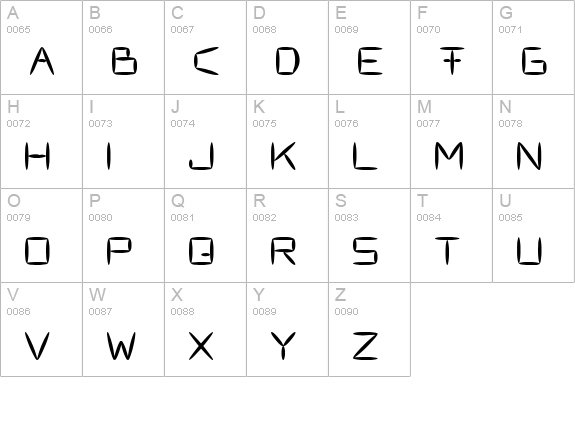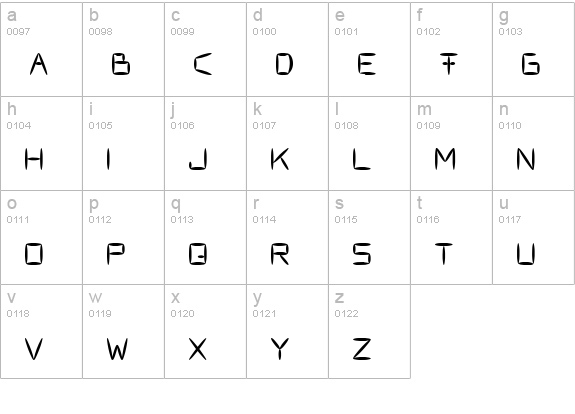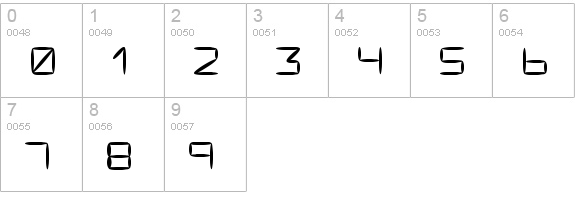
Fracksausen Font Details
Fracksausen font is a whimsical and playful typeface that exudes charm and character. With its irregular shapes and quirky details, this font is perfect for adding a touch of fun to your projects. Whether you're working on a poster, invitation, or branding design, Fracksausen font will surely make a statement. What's even better is that Fracksausen font is completely free to download at FontsMarket.com. So you can easily access this unique and eye-catching font for your creative endeavors without any cost. Don't miss out on the opportunity to enhance your designs with the delightful Fracksausen font. Download it today and let your creativity shine!